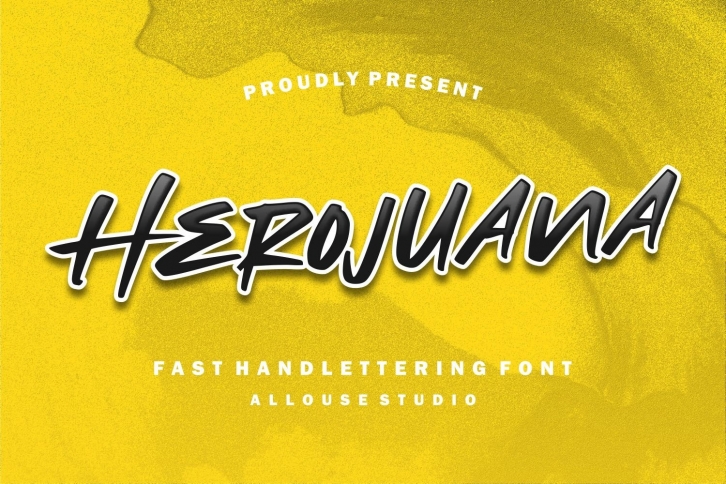
Web is a beautiful font that was designed by Allouse Studio. It's a great choice for designers and creatives who need such a font. It was released on February 22, 2021 and the file size is 11.17 MB. Web may give a more youthful, expressive and casual look to your project. It is a very beautiful, refined, elegant, and high-quality font.